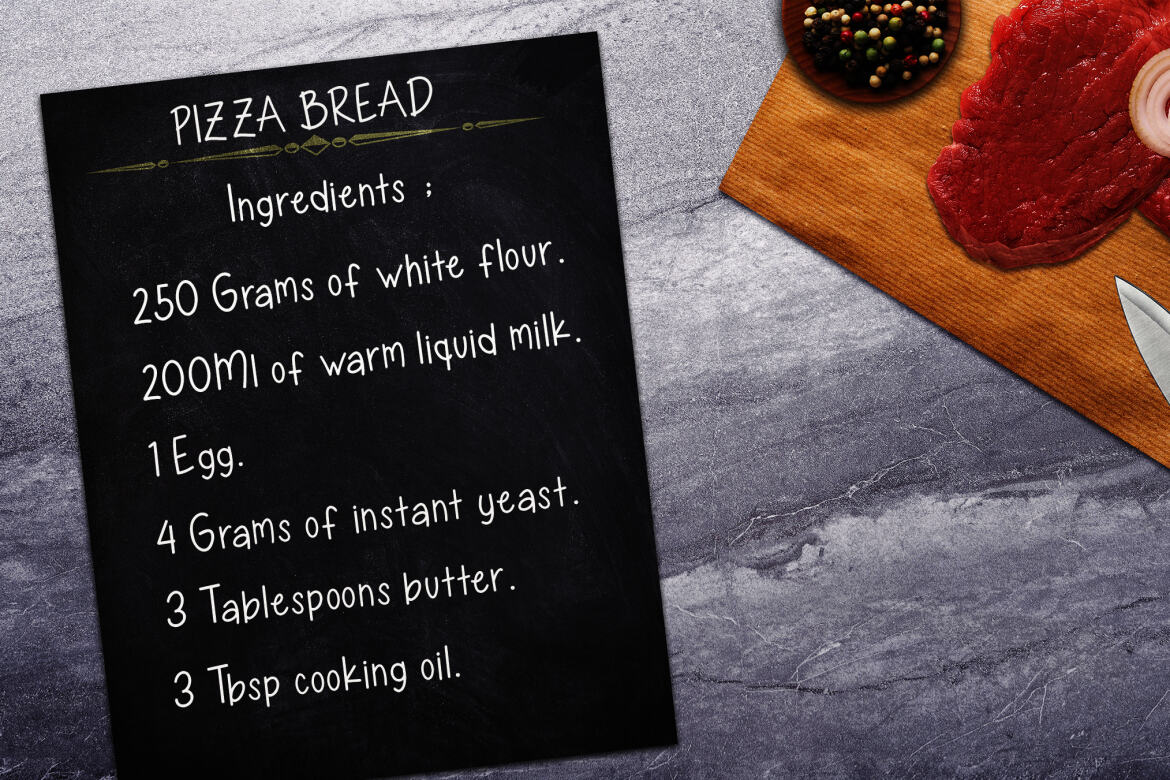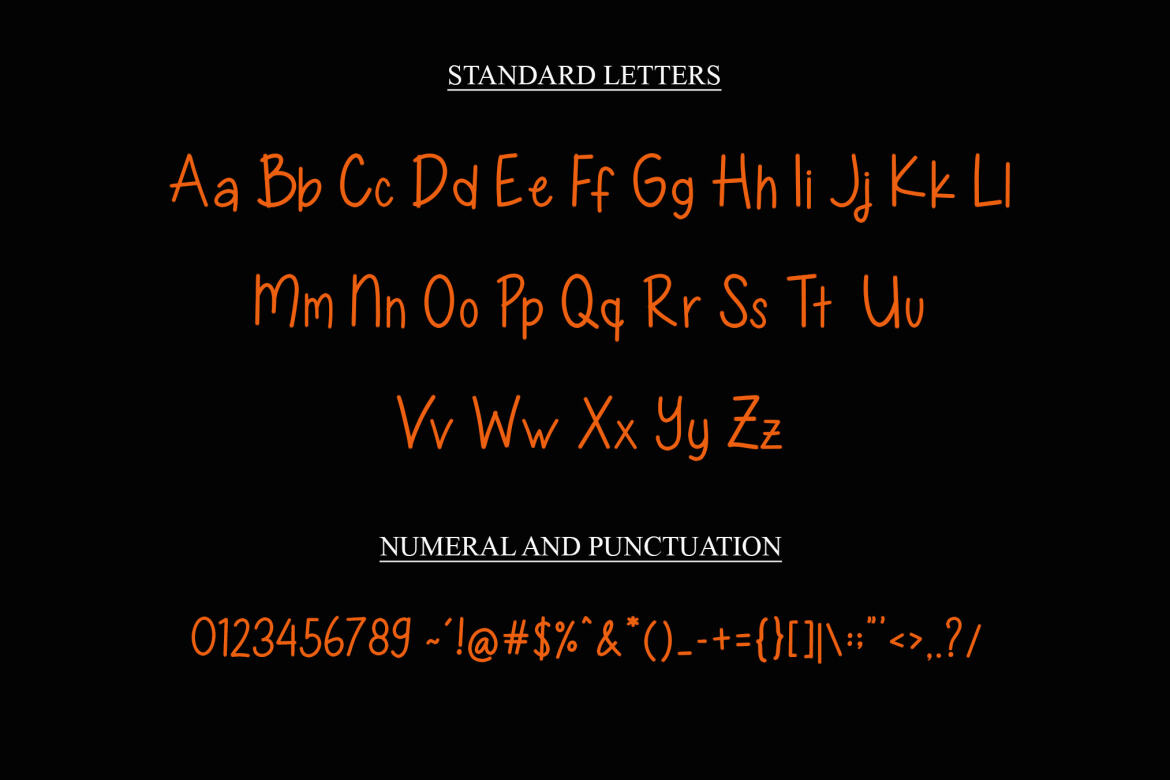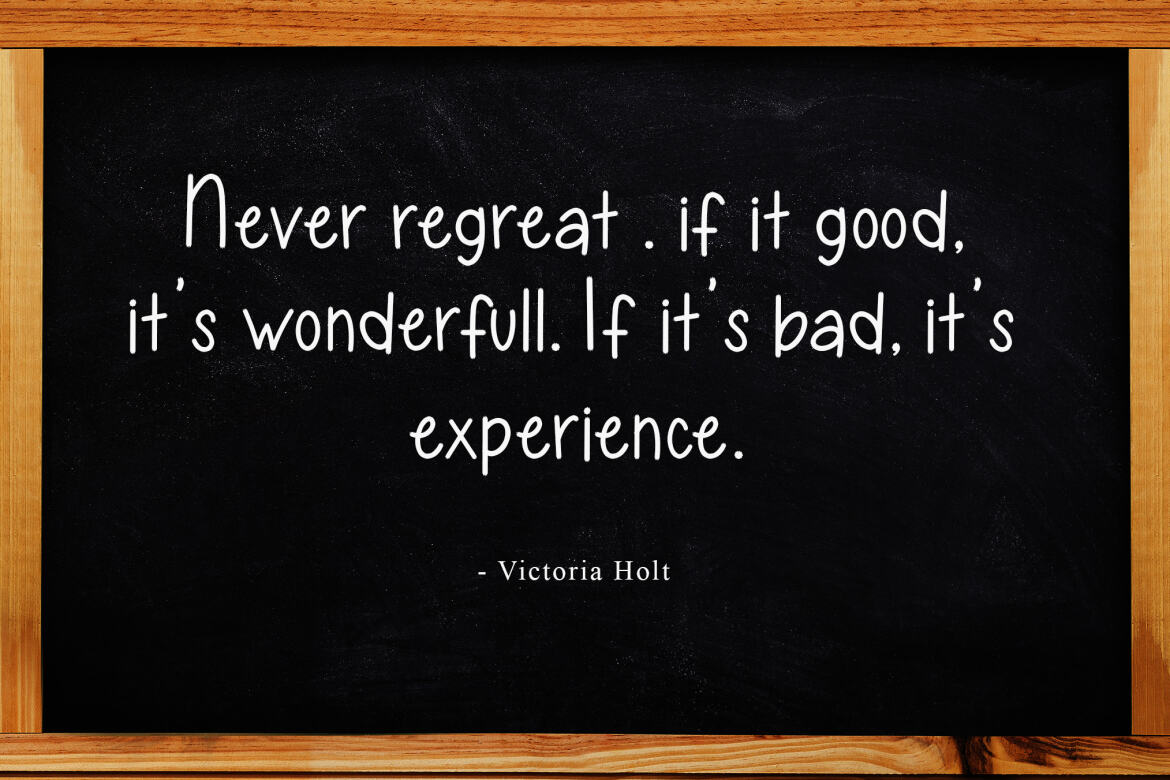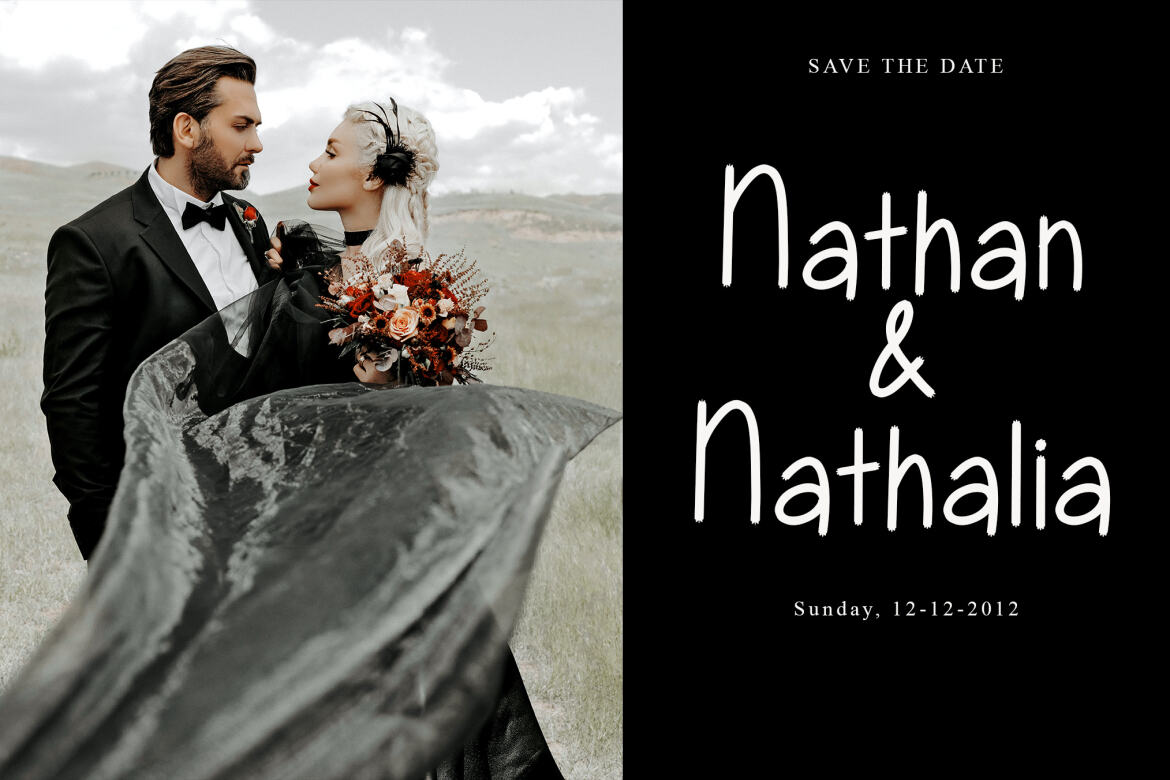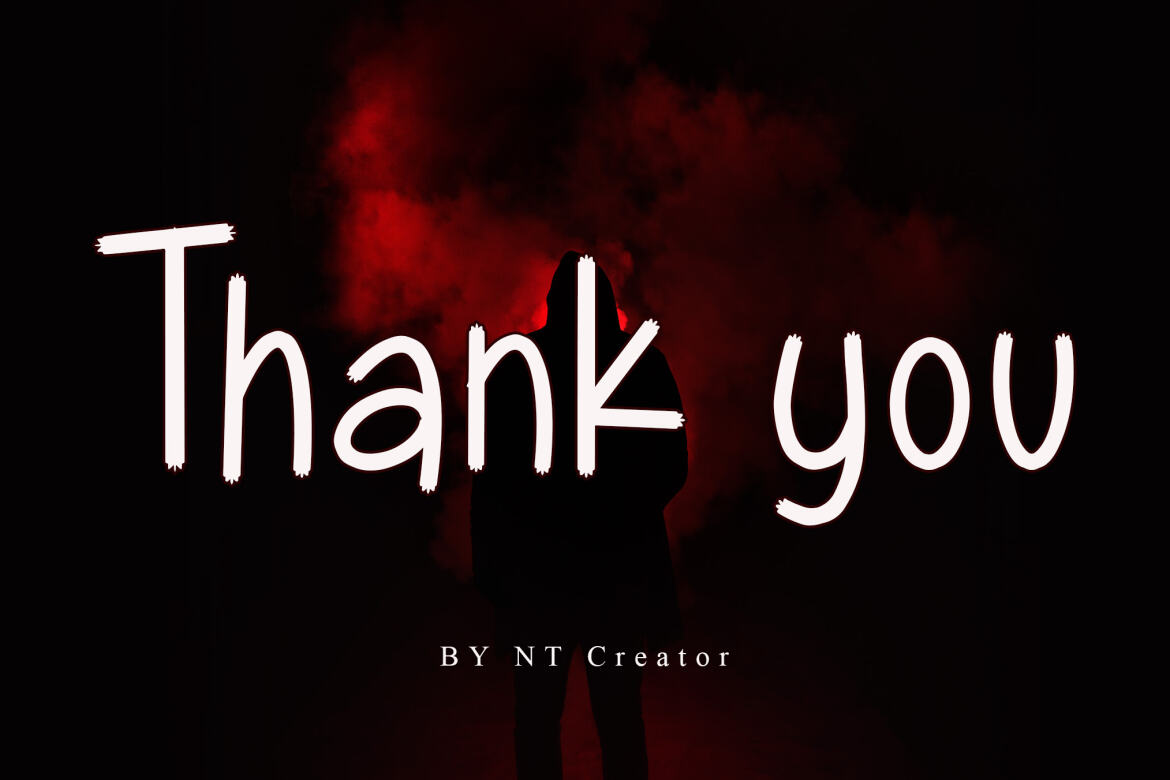
Misterius - Free Font
Misterius
Misterius is a thin and clean handwritten font that can be used for chalkboard quotes or teaching material! Its authentic look and feel will add a personal and realistic touch to your designs!